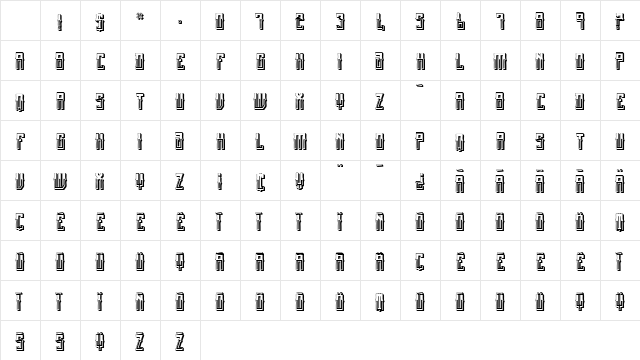
Complete Mexican fiesta Bold glyph index. Displaying only characters natively supported by Mexican fiesta Bold font.
Mexican fiesta is a composed and adaptable typeface that performs quietly and consistently across a wide range of design contexts. Its bold stroke weight gives it real presence on the page.